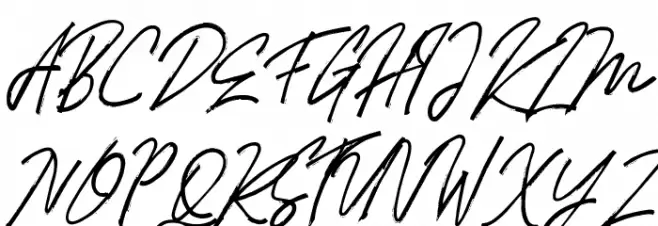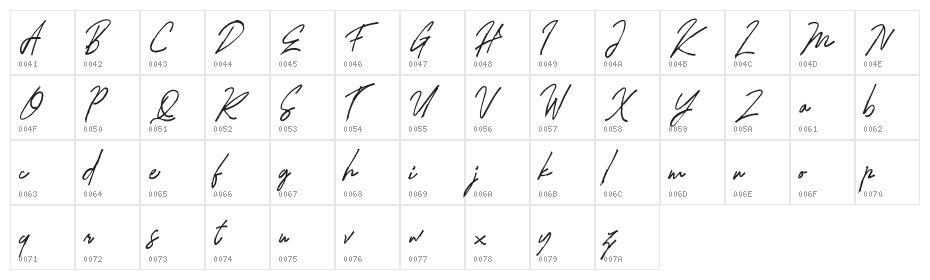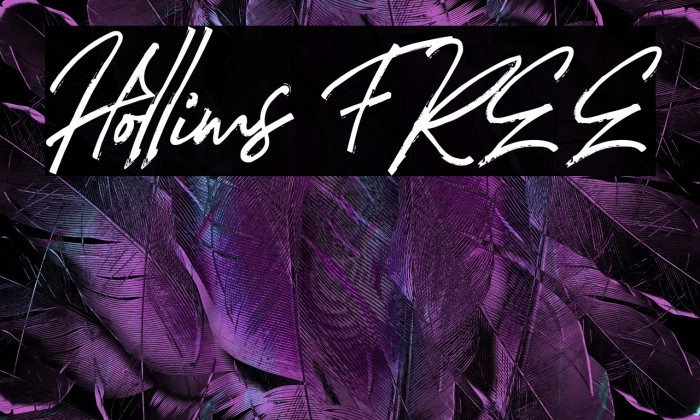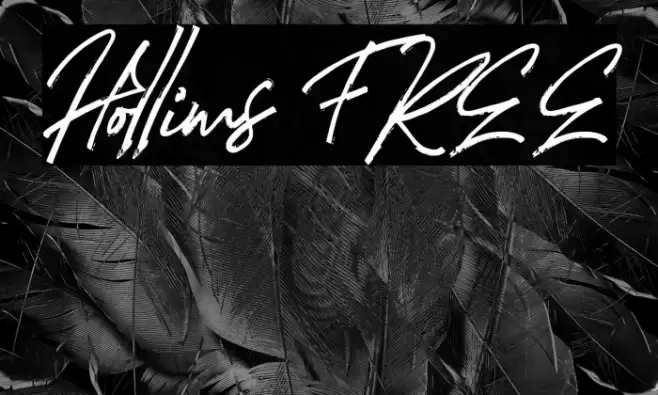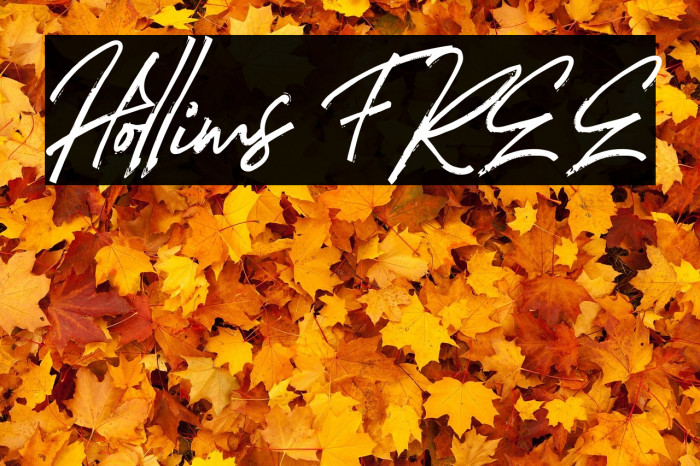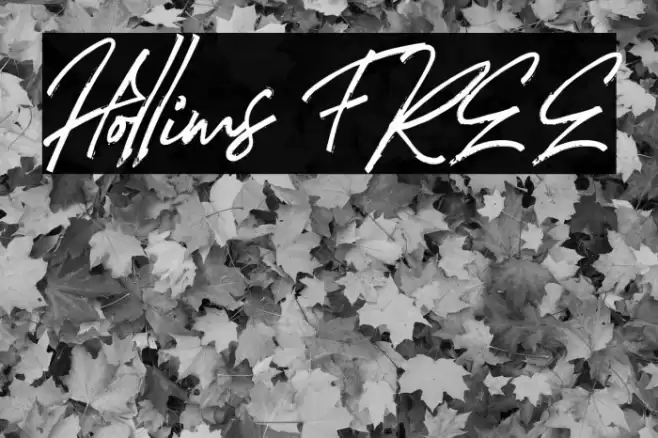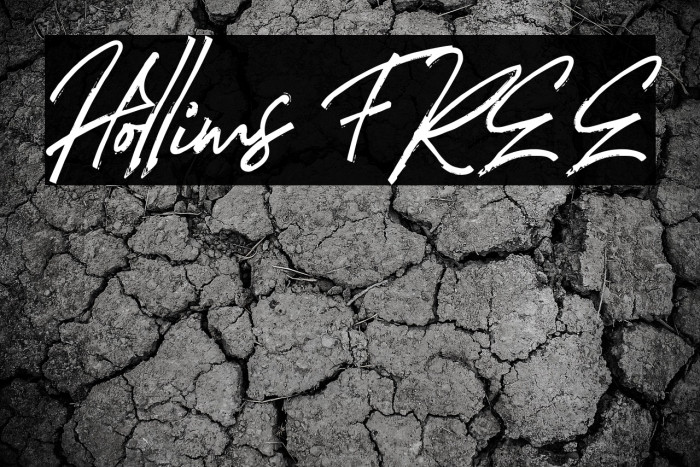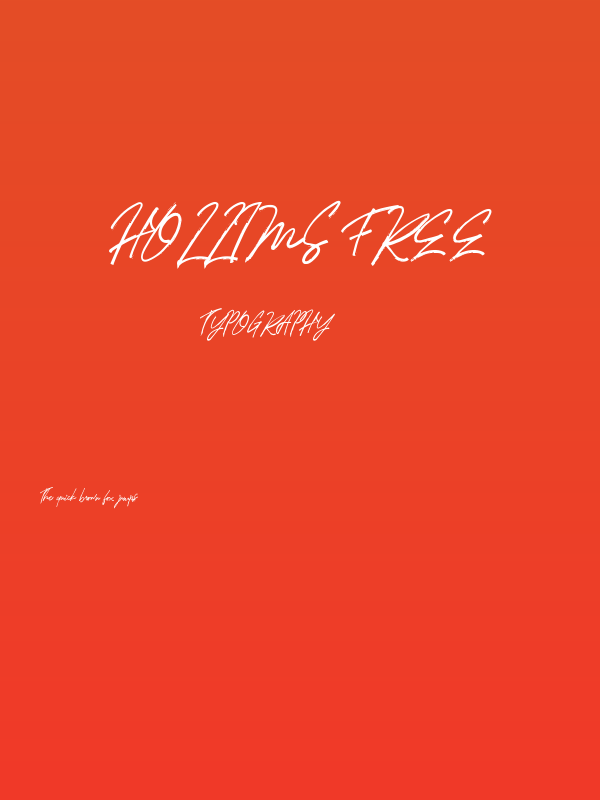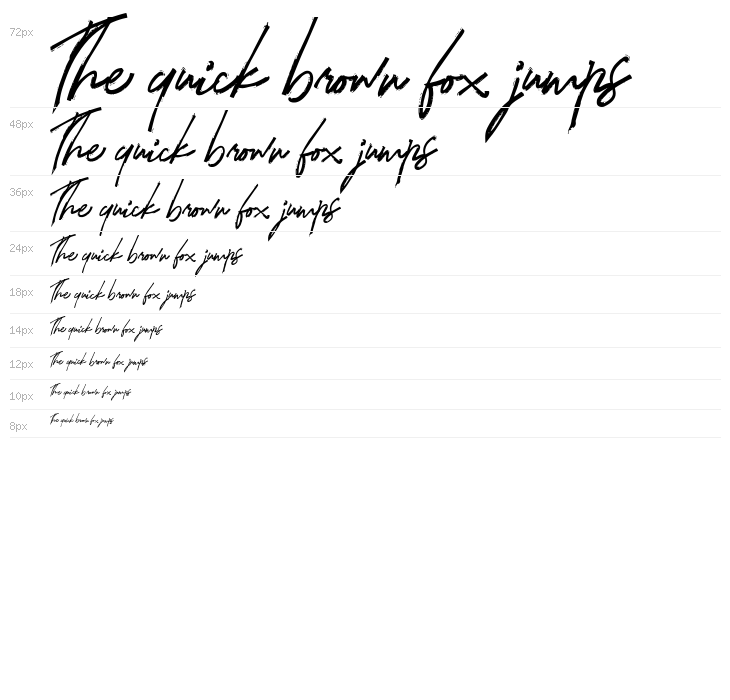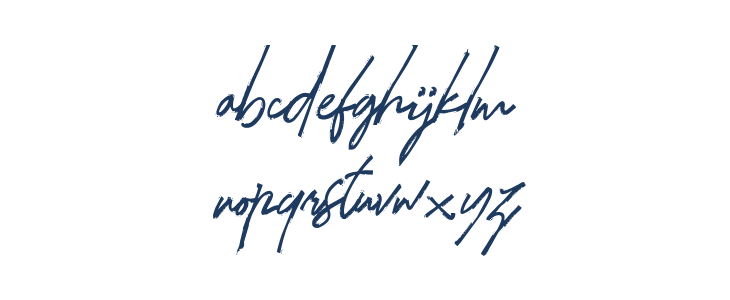
Hollims FREE Font
Hollims FREE Description
This font features a dynamic and expressive handwritten style, characterized by fluid strokes and a natural flow that mimics authentic penmanship. The letters are slightly slanted, adding to the casual and personal feel of the design. The uppercase and lowercase letters maintain a consistent style, with some variation in stroke thickness that adds a lively and spontaneous touch. The font includes a full set of uppercase and lowercase letters, numbers, and a selection of special characters, making it versatile for various design needs. Its organic and artistic appearance makes it suitable for projects that require a personal or creative touch.